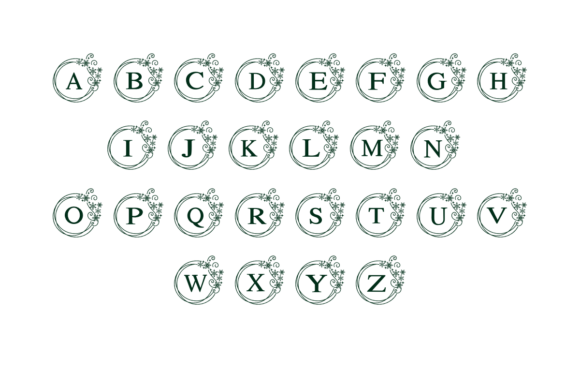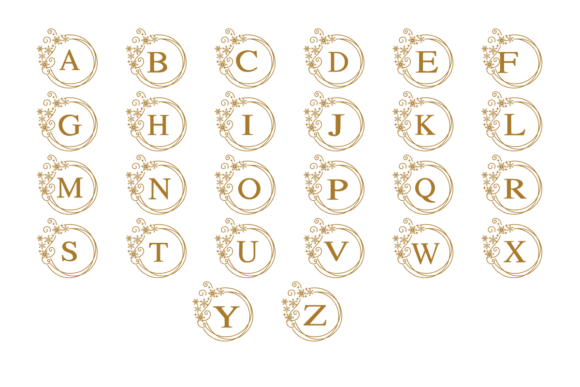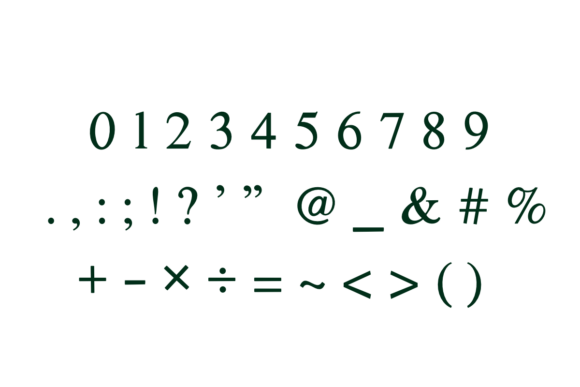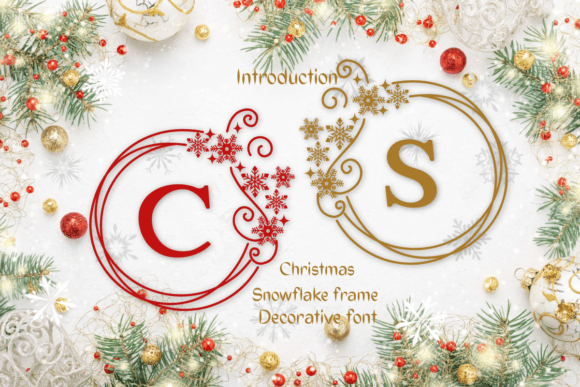
Introduction to Christmas Snowflake Frame Font
Christmas Snowflake Frame is an elegant and festive decorative font that features beautifully framed uppercase letters with swirling snowflake embellishments.
Perfect for monogram projects, holiday cards, gift tags, ornaments, and luxury Christmas branding, this font blends winter magic with classic typography Each character is encased in a sophisticated circular snowflake border, making your designs feel like ornate holiday centerpieces.
Key Features of Christmas Snowflake Frame Font
Why Choose Christmas Snowflake Frame Font?
Christmas Snowflake Frame Font offers exceptional quality and versatility, making it a valuable addition to your design toolkit. Whether you’re creating for personal projects or commercial use, Christmas Snowflake Frame Font delivers professional results.